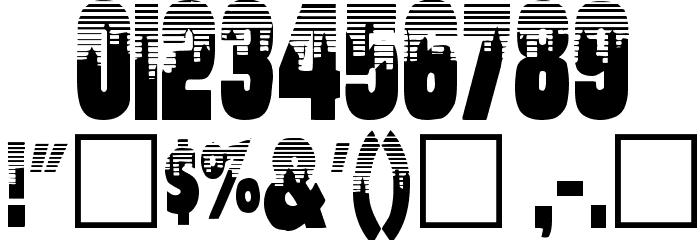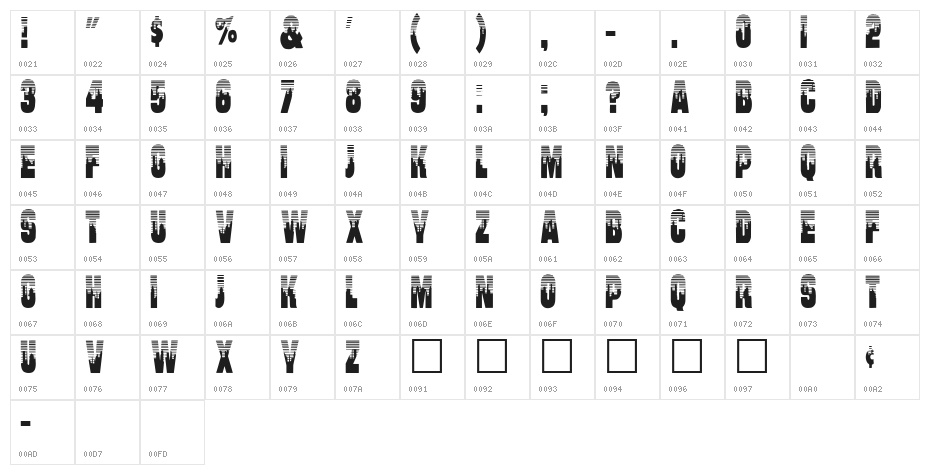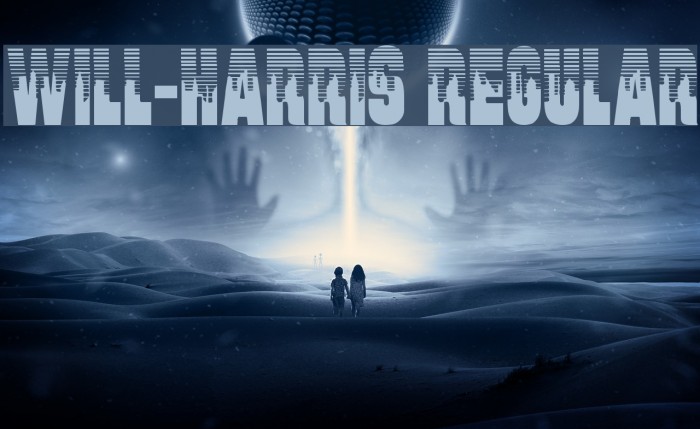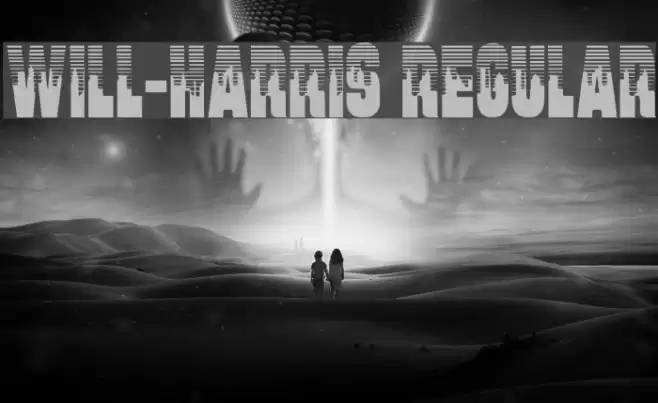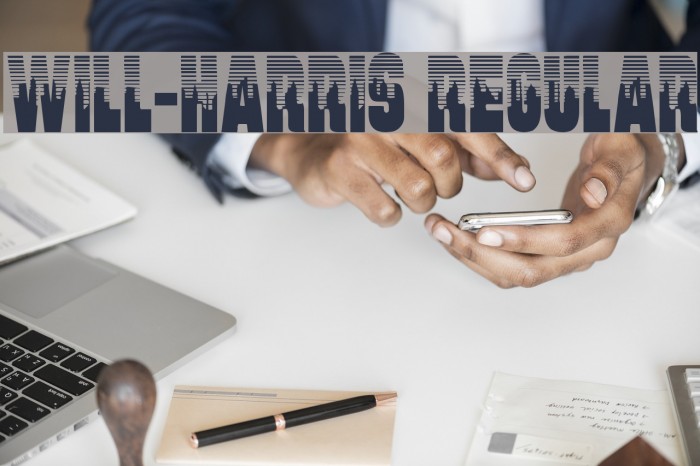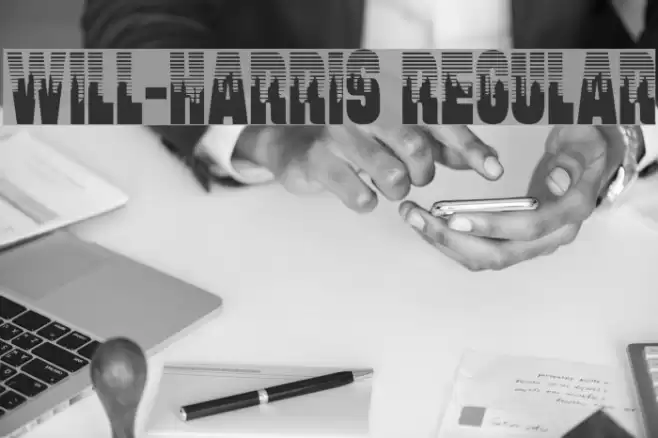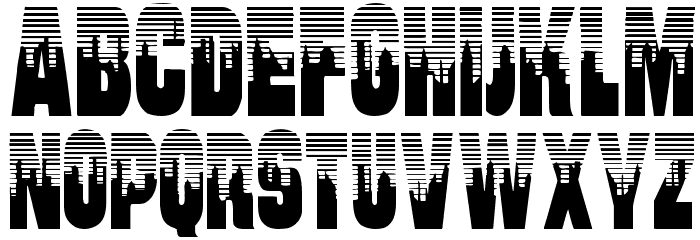
Will-Harris Regular Font
Will-Harris Regular Description
This font features a bold and striking design with a unique pattern of horizontal stripes that create a dynamic visual effect. The uppercase letters are particularly eye-catching, with a solid base and a gradient of lines that add depth and texture. The numbers and special characters follow the same style, ensuring consistency across all elements. This font is perfect for projects that require a strong visual impact and a modern, edgy aesthetic. The combination of solid and striped elements makes it versatile for various creative applications.
| Proposed Projects | Ideal for posters, album covers, branding, and any project needing a bold statement. |